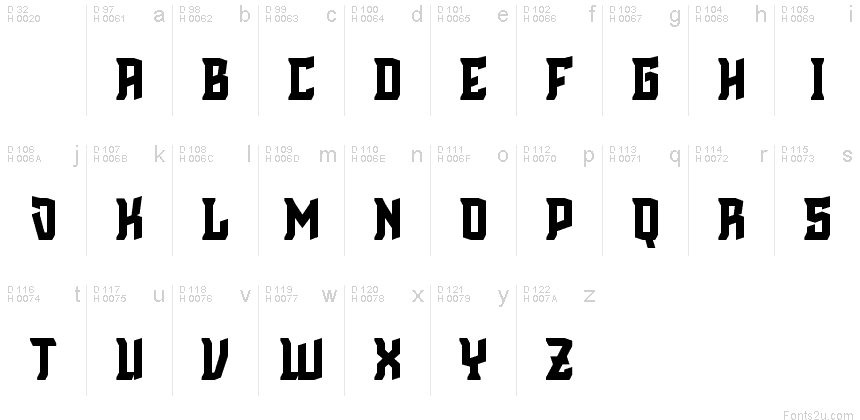
Cinematic English by Mirco Zett is a free modern Gothic display font with broad dark capitals, sharply cut edges, and a tightly packed silhouette. Its blunt verticals, deep notches, and repeated wedge-like points give the lettering the force of massive old carved signage.
Sports merchandise and horror film graphics benefit from its hard-edged theatrical weight. On concert tour posters, illustrated book covers, and magazine feature openers, the angular shapes can echo blades, armor, or industrial architecture, turning the type into part of the printed subject rather than a neutral caption.